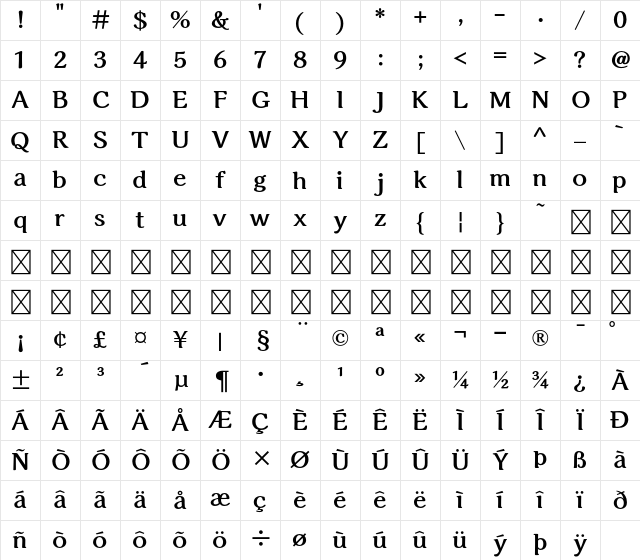
A-OTF Kaimin Sora Std H
Style: H
Designer: Kazuo Kanai
A-OTF Kaimin Sora Std Family
Design Context for A-OTF Kaimin Sora Std
A-OTF Kaimin Sora Std is a composed and adaptable typeface that performs quietly and consistently across a wide range of design contexts.